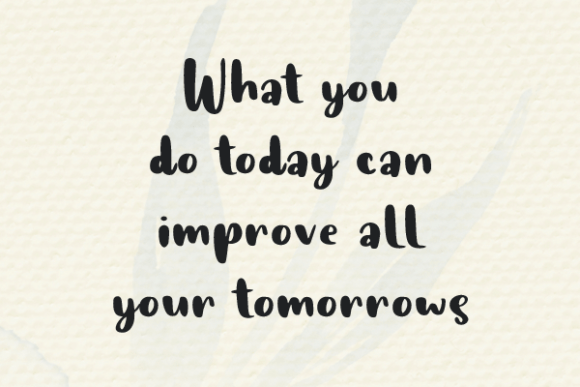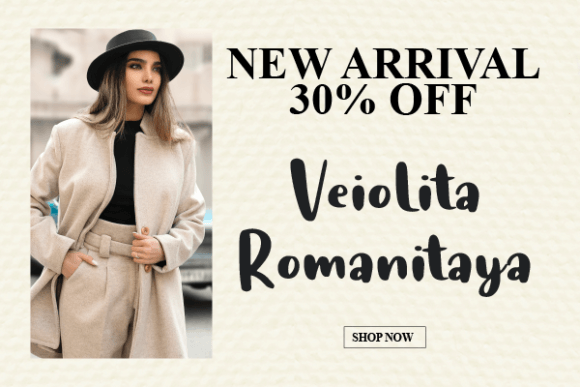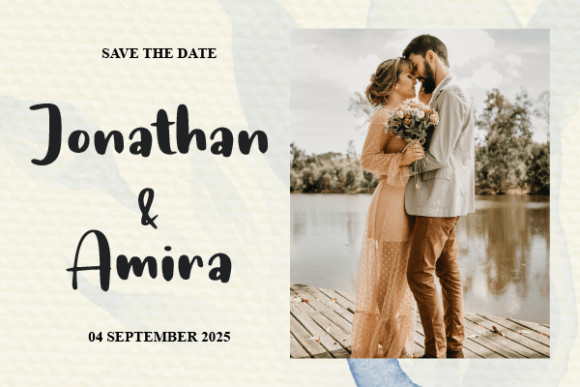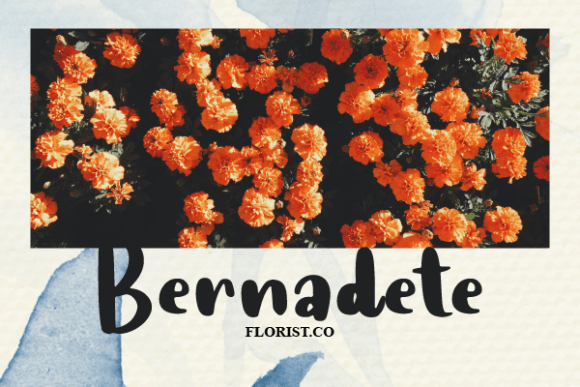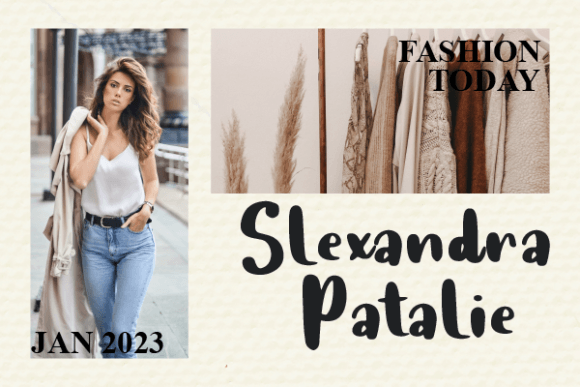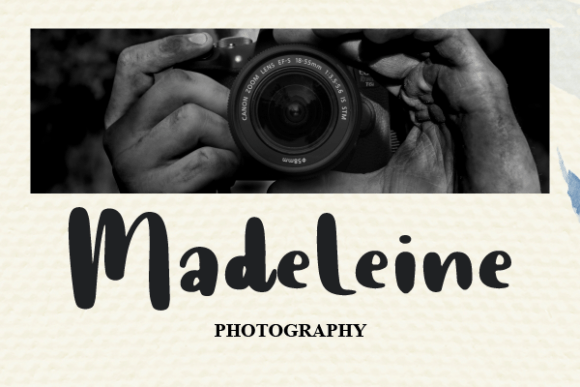
Introducing Charlotte Fernandes Font: The Epitome of Elegance and Romance
In the world of typography, few fonts manage to capture the essence of elegance and romance as effortlessly as the Charlotte Fernandes font. This beautiful, handwritten font has been turning heads with its captivating flair, making it a top choice for designers and crafters looking to add a touch of sophistication to their projects. Whether you’re working on wedding invitations, advertisements, or posters for fashion events, Charlotte Fernandes is the perfect companion to bring your creative vision to life.
The Unique Charm of Charlotte Fernandes
Charlotte Fernandes is more than just a font; it’s an experience. Its elegant and romantic handwritten style is designed to evoke emotions and create a lasting impression. The background and letters of the font come with a distinctive flair that sets it apart from more conventional fonts. This unique charm makes it incredibly versatile, suitable for a wide range of applications that require a charming and sophisticated font.
Perfect for Wedding Invitations
Wedding planning is a time of great excitement and romance, and the invitation sets the tone for the entire event. With Charlotte Fernandes, you can create wedding invitations that are as elegant and romantic as the occasion itself. The font’s beautiful, flowing script and captivating flair make it perfect for conveying the joy and love of the special day. Whether you’re a stationery designer, a DIY bride, or a professional event planner, Charlotte Fernandes can help you create wedding invitations that are truly unforgettable.
Elevate Your Advertisements and Fashion Event Posters
In the competitive world of advertising and fashion, standing out from the crowd is crucial. Charlotte Fernandes offers a sophisticated and stylish solution for your advertising needs and fashion event posters. Its elegant and romantic appeal can add a touch of luxury to your brand, making your advertisements and posters more captivating and engaging. Whether you’re promoting a high-end fashion show, a luxury product, or a special offer, Charlotte Fernandes can help you communicate your message with style and sophistication.
Why Designers and Crafters Love Charlotte Fernandes
Designers and crafters are always on the lookout for fonts that can help them create unique and impactful designs. Charlotte Fernandes has quickly become a favorite among creative professionals for several reasons:
- Elegance and Versatility: The font’s elegant and romantic style makes it suitable for a wide range of projects, from wedding invitations to luxury brand advertisements.
- Unique Flair: The captivating flair of Charlotte Fernandes sets it apart from other fonts, allowing designers to create truly distinctive designs.
- Easy to Read: Despite its elegant and flowing script, Charlotte Fernandes remains highly legible, making it perfect for both headings and body text.
- High-Quality Design: The font is meticulously designed, with attention to detail that ensures it looks great in any size or application.
How to Use Charlotte Fernandes in Your Projects
Incorporating Charlotte Fernandes into your projects is straightforward. Here are a few tips to get you started:
- Pair it with Complementary Fonts: For maximum impact, pair Charlotte Fernandes with simpler, sans-serif fonts for contrast.
- Experiment with Colors: While the font itself is elegant, experimenting with different colors can help you match it to your project’s specific needs.
- Play with Sizes: Don’t be afraid to vary the font size to create visual hierarchy and emphasize key messages.
Charlotte Fernandes is a beautiful, elegant, and romantic handwritten font that can elevate any project. Its unique flair and captivating style make it perfect for wedding invitations, advertisements, fashion event posters, and any other project that requires a charming and sophisticated font. Designers and crafters looking to add a touch of elegance and romance to their work will find Charlotte Fernandes to be an invaluable resource. With its versatility, readability, and high-quality design, it’s no wonder that Charlotte Fernandes has quickly become a favorite among creative professionals.